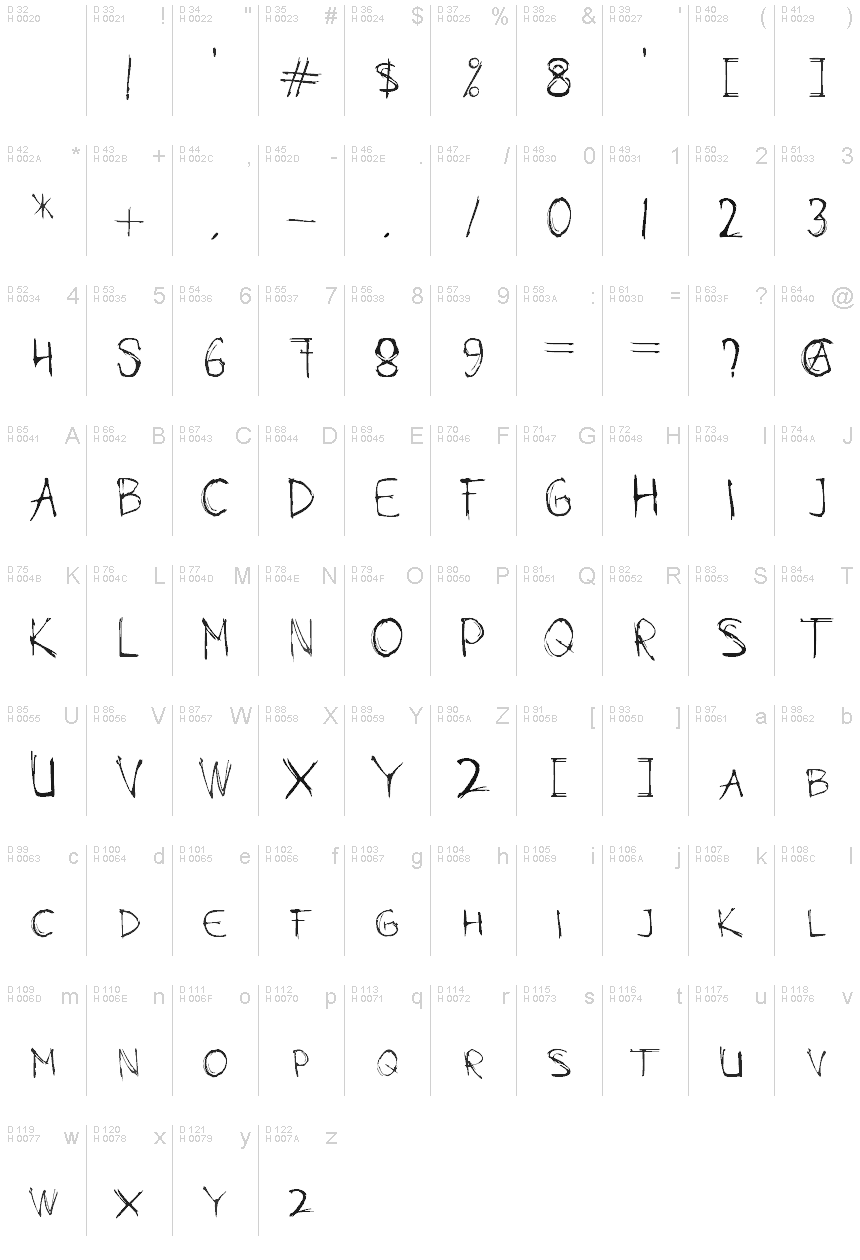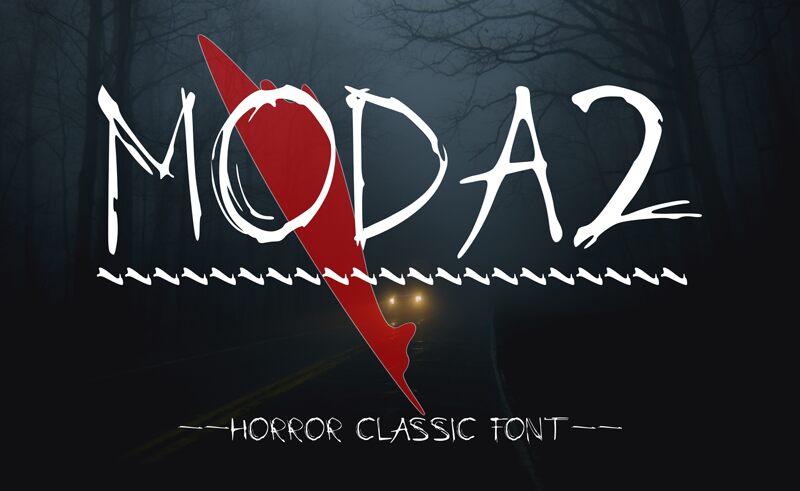
MODAZ
The Modaz font, crafted by Ishmael Studio, exudes a captivating and eerie charm. Its bold, dynamic strokes and sharp edges create a striking, almost haunting aesthetic, evoking a sense of mystery and intrigue. The font's distinct, irregular forms lend it an organic, hand-drawn quality, adding depth and character to any design. Modaz's versatility shines through, making it an exceptional choice for bold, attention-grabbing projects that require a touch of the macabre.
This font's versatility extends beyond the realm of the macabre, finding applications in a wide range of design contexts. Its bold, impactful style lends itself well to branding, event posters, and multimedia content, captivating audiences with its unique flair. Modaz's distinctive personality makes it an ideal choice for crafting memorable, eye-catching designs that leave a lasting impression.